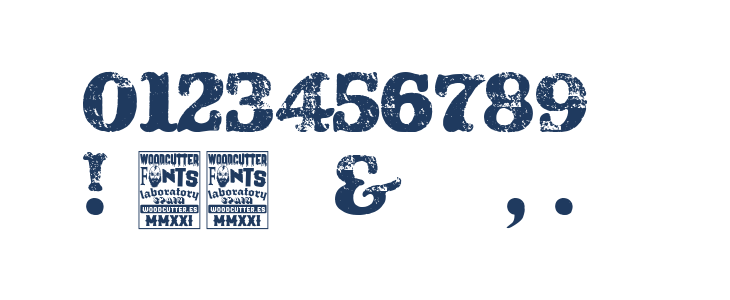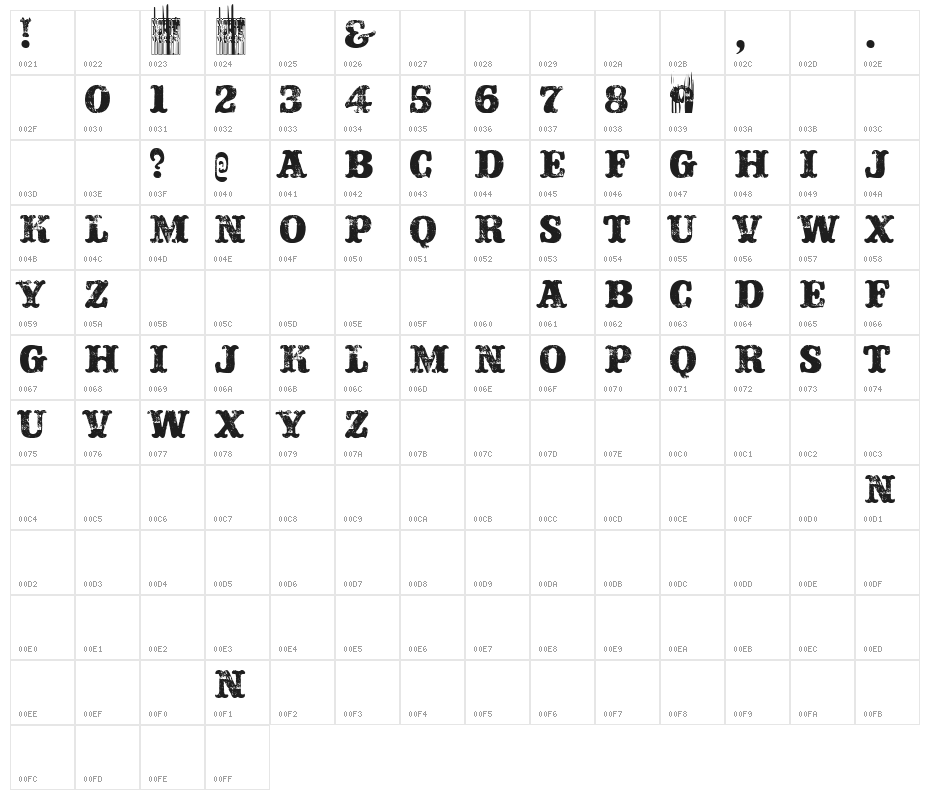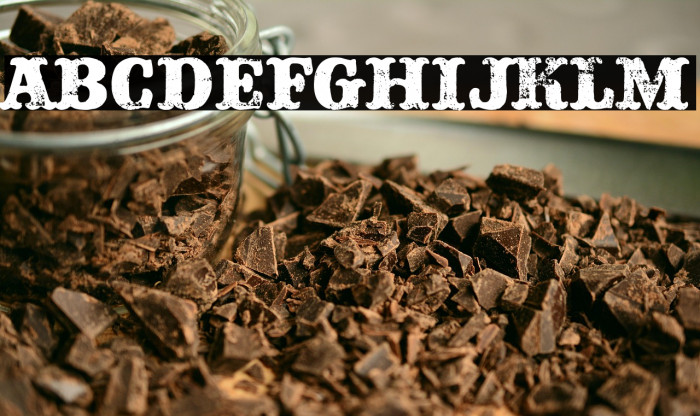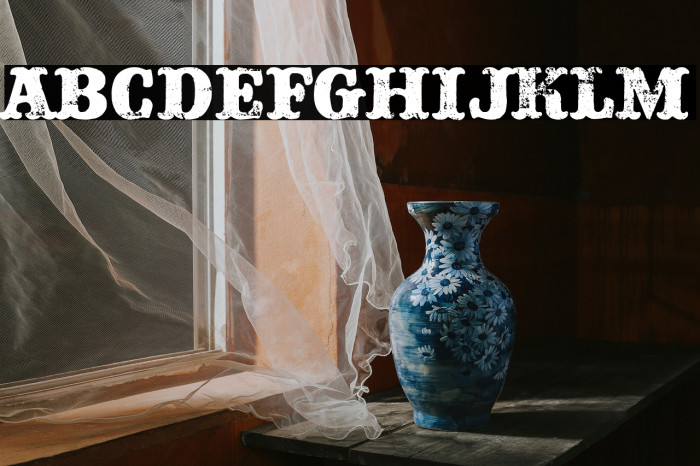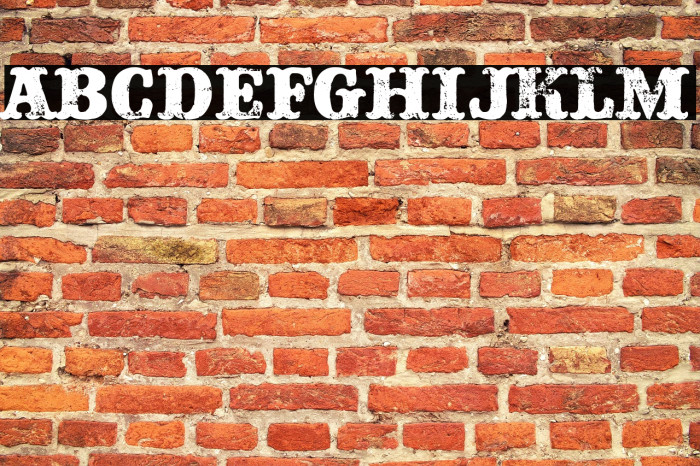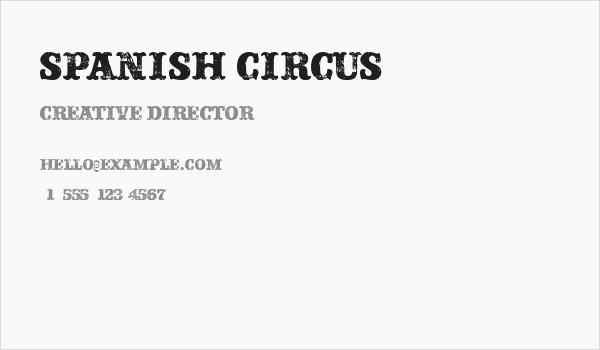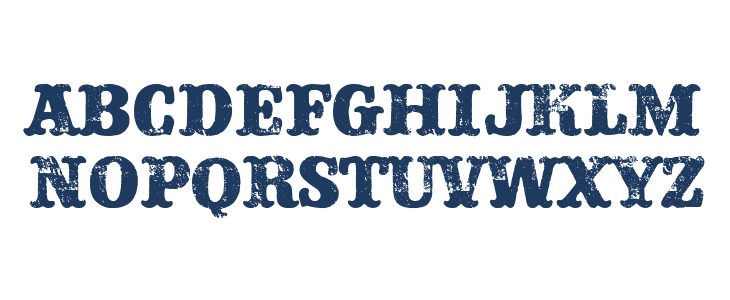
Spanish Circus Font
Spanish Circus Description
This font features a bold, distressed style that evokes a vintage circus or carnival atmosphere. The characters are heavily textured, giving them a worn and rugged appearance, reminiscent of old posters or signage. The uppercase letters are prominent and commanding, while the numbers and special characters maintain the same distressed aesthetic, ensuring a cohesive look across all elements. The font's unique style makes it stand out, perfect for designs that require a touch of nostalgia and flair.
| Proposed Projects | Ideal for vintage-themed posters, circus or carnival event flyers, retro branding, and decorative signage. |